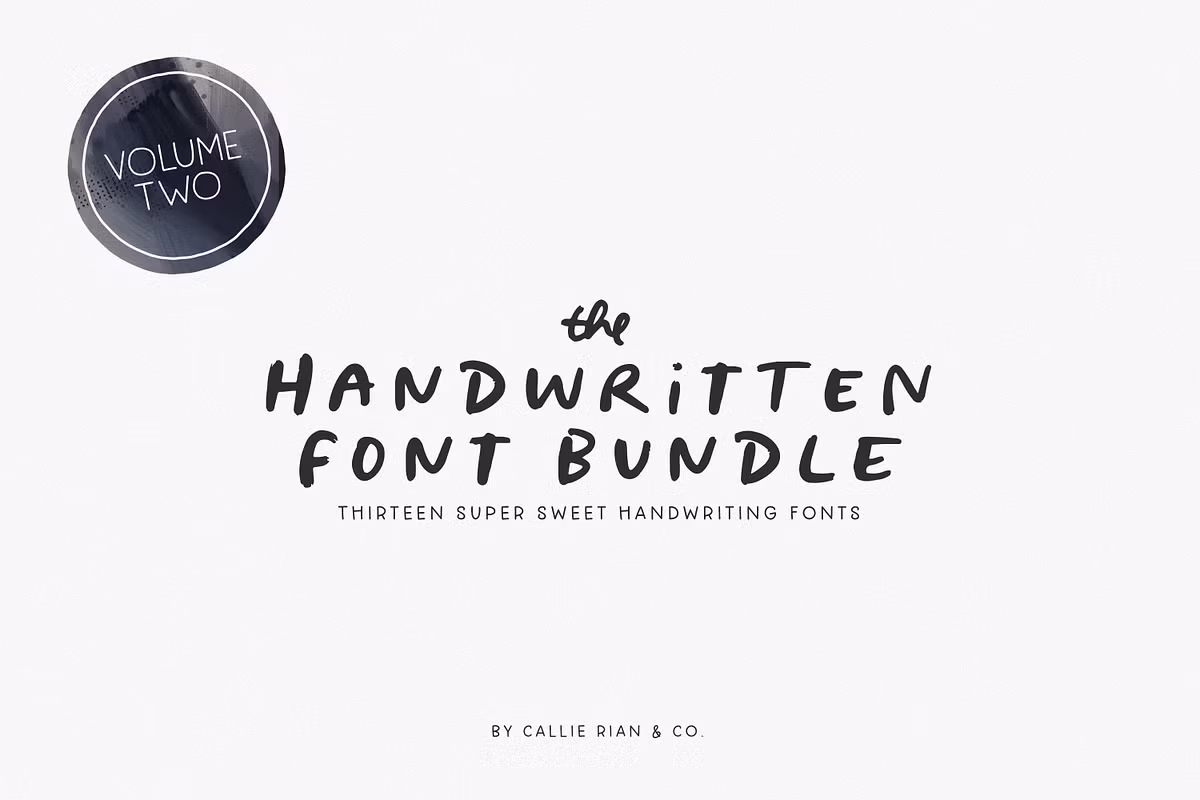
The Handwritten Font Bundle Vol. 2 Free Download is a curated collection of stylish and diverse handwritten fonts, designed to bring a personal, authentic touch to your design projects. Whether you're working on branding, invitations, social media graphics, or creative product designs, this bundle provides a wide variety of script and casual fonts to suit different needs.
The bundle typically includes multiple handwritten fonts that capture different moods and aesthetics—from playful and whimsical to elegant and sophisticated. It is perfect for projects where you want to add a human touch and create a warm, inviting feel.
The bundle includes uppercase and lowercase letters, numerals, punctuation, and multilingual support. Each font is designed for versatility, making it suitable for both print and digital applications.